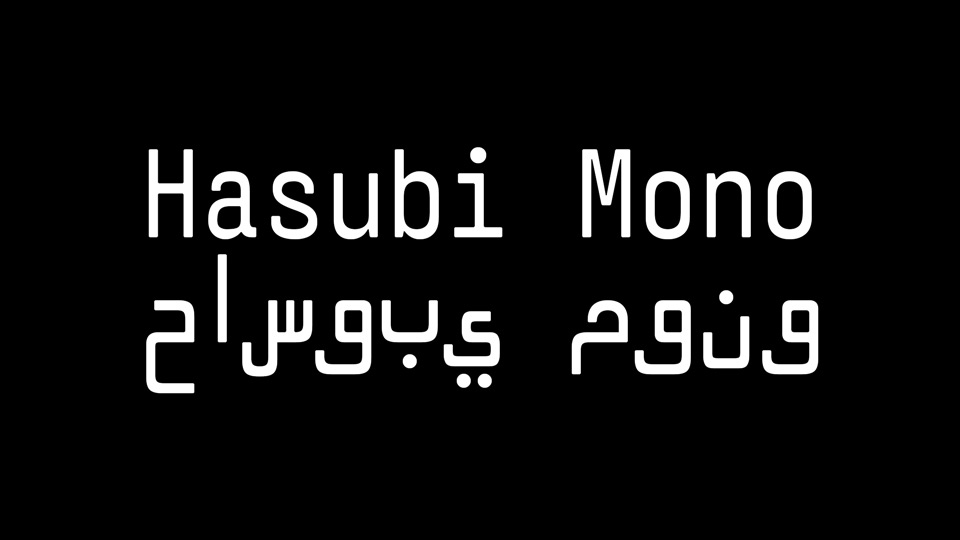
Download Hasubi Mono font, a condensed horizontal contrast monospace typeface. Hasubi Mono was specifically designed for people working with a mix of RTL and LRT scripts in text editors and IDEs.
Designer: Eli Heuer